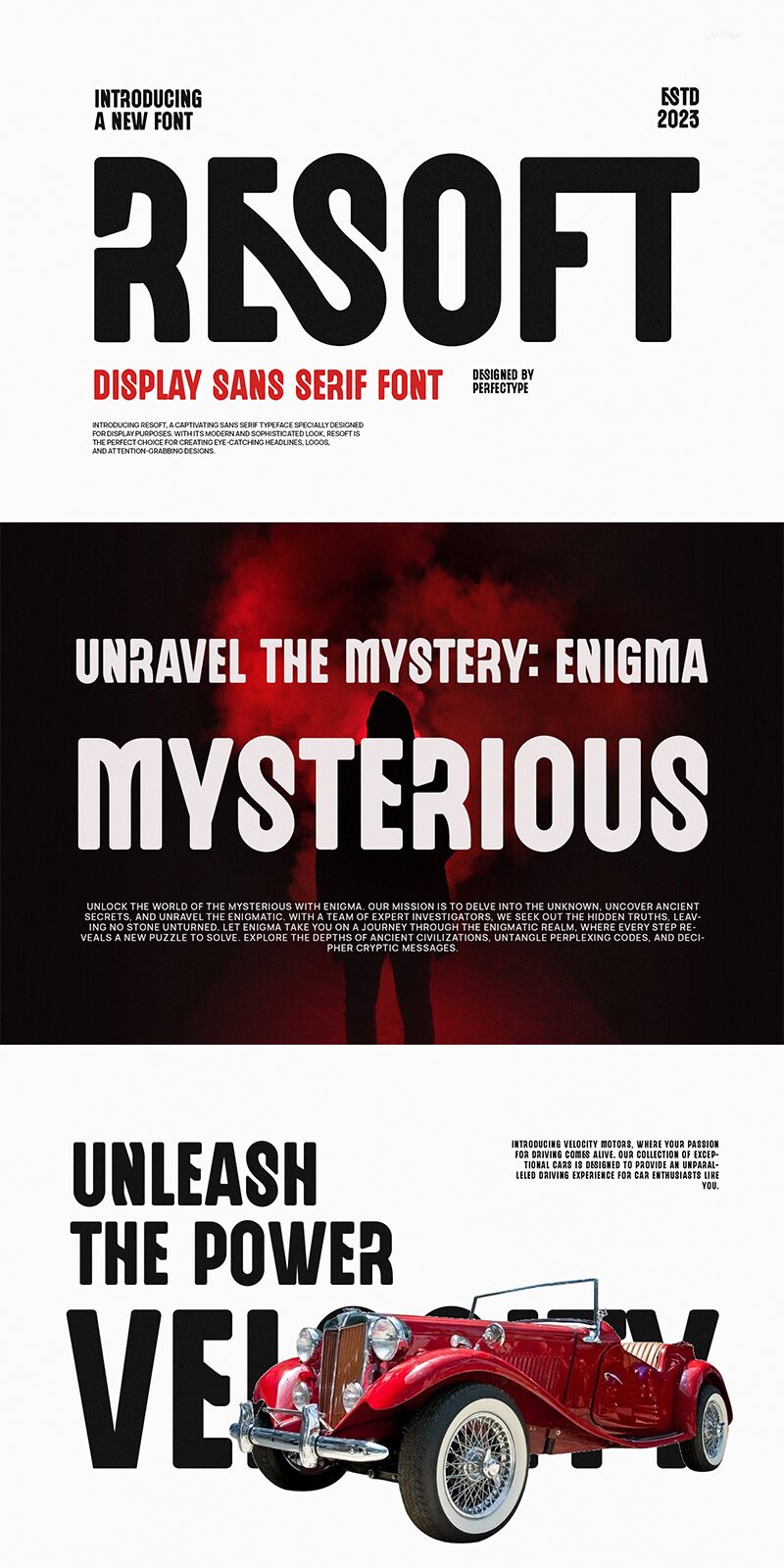
Resoft
Resoft font by Setyo Wati of Perfectype is a free decorative display typeface that turns heavy letterforms into something unexpectedly smooth and friendly. Its big, blocky shapes feel solid and confident, while the rounded corners and soft inner curves keep it approachable instead of harsh. The result is a bold, in-your-face wordmark that still reads as warm and contemporary, like thick ink poured into a perfectly cut stencil.
Using Resoft, your headlines and logos grab attention with dense, uniform weight and generous negative space that makes each word feel sculpted. This free font shines on branding, packaging, posters, merch, album covers, and social graphics where you want impact without aggression. Pair Resoft with a clean geometric sans in smaller sizes to handle body copy and let Resoft carry the loud, memorable moments.